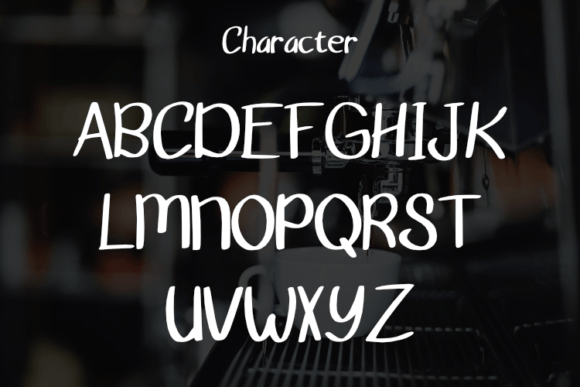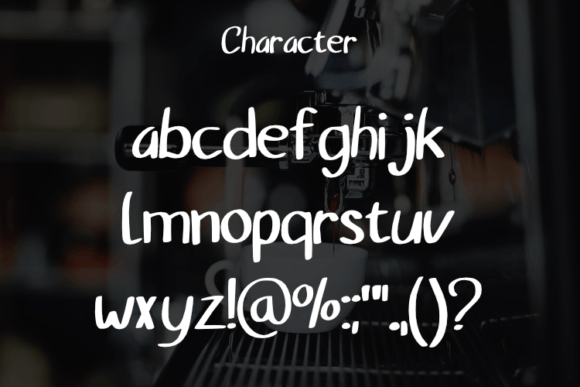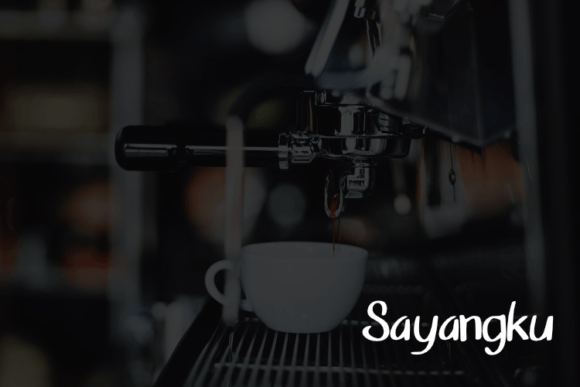
Introduction to Sayangku Font
Have you ever stumbled upon a font that perfectly captures the essence of your creative vision? For designers, this moment is pure magic. It’s the moment when all the pieces fall into place, and your project starts to take shape. For me, that moment came when I discovered the Sayangku Font. Its simple yet elegant style spoke directly to my heart, and I knew I had to share it with the world.
As a valuable design resource, Sayangku Font is perfect for designers looking to add a touch of sophistication to their projects. With its modern look and high-quality design, it’s ideal for creating luxurious logos, book titles, and magazine covers. Whether you’re working on a free download or a paid project, Sayangku Font is sure to make a lasting impression.
Key Features of Sayangku Font
- Unique Hand-Drawn Design: Sayangku Font features a distinctive hand-drawn style that adds a personal touch to any creative project.
- Perfect for Creative Projects: Sayangku Font is designed to add a touch of elegance and sophistication to any creative project, from branding and marketing materials to digital art and graphic design.
Honest Review: Sayangku Font
The Sayangku Font is a beautifully crafted typeface that boasts a transparent background, making it perfect for designers who need a clean and simple design element. ✨ Its high-quality design is evident in every stroke, and I appreciate the care that went into creating this font.
- ✨ High-quality design
- ✨ Transparent background
However, I did encounter some limitations with the Sayangku Font. ⚠️ While it’s great that it’s free, the font lacks a wide range of languages, which might be a drawback for designers working on international projects. Additionally, the font’s styling options are somewhat limited, which may not be ideal for designers who prefer more customization.
Overall, I think the Sayangku Font is a solid design resource that can add a touch of elegance to creative projects. While it’s not perfect, its high-quality design and transparent background make it a great choice for designers who need a simple and clean font.
Designing with Sayangku Font
For high-quality designs, use the Sayangku Font with a transparent background to create a clean and minimalist look. This font is perfect for creative projects, such as logos, posters, and social media graphics.
The Sayangku Font is ideal for a variety of design projects, including:
- Business cards and stationery